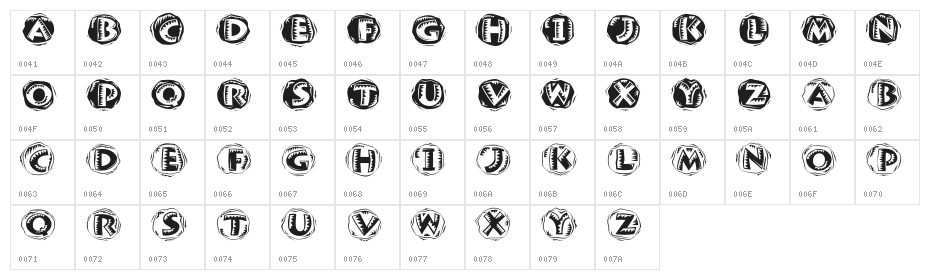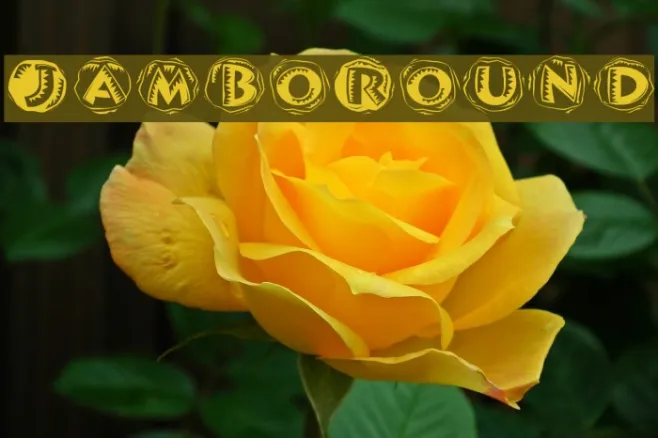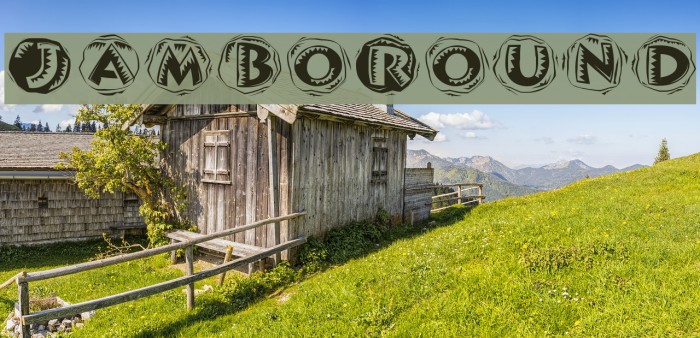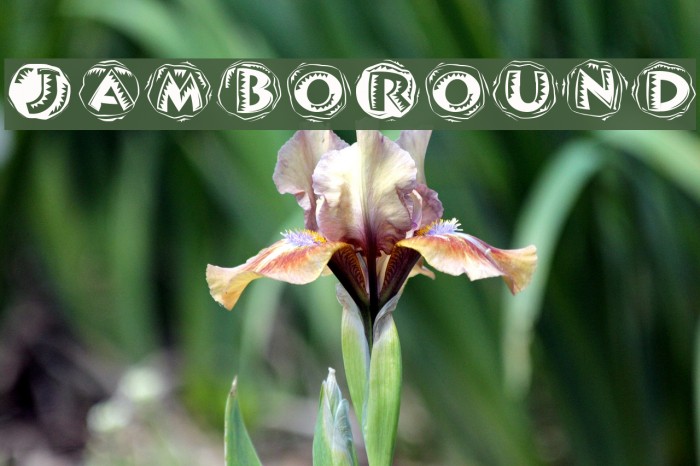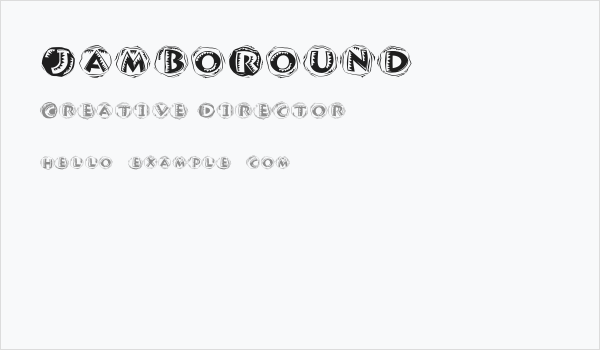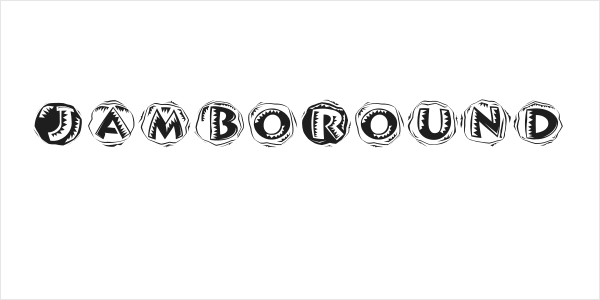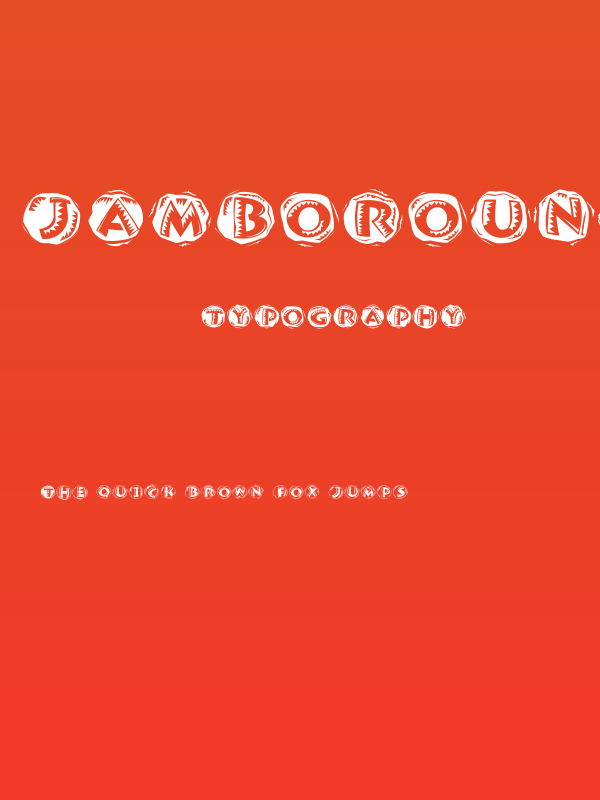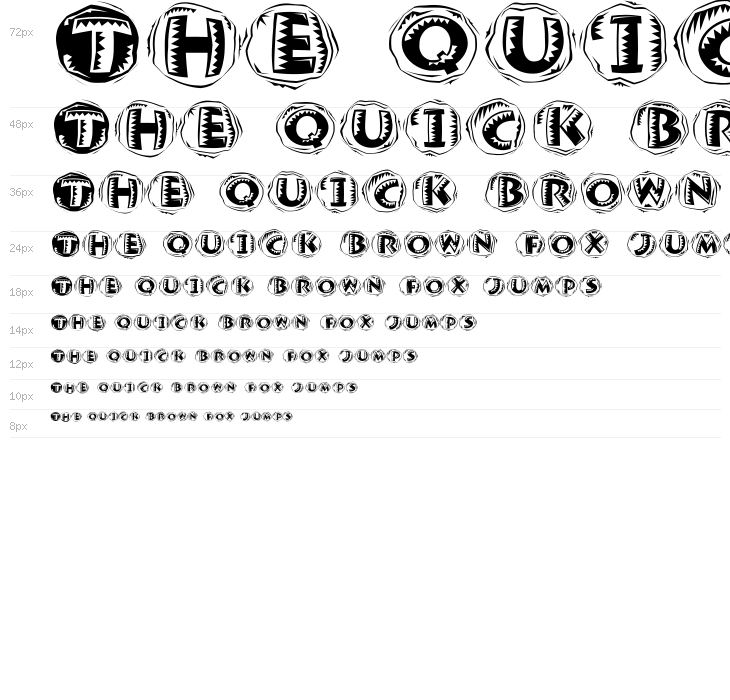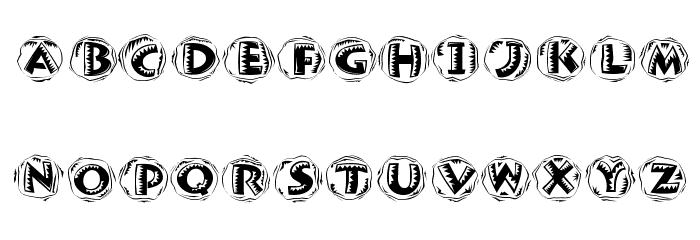
JamboRound Font
JamboRound Description
This font features bold, uppercase letters encased in circular shapes with a hand-drawn, sketch-like texture. The letters are stylized with a playful and artistic flair, making them stand out with a unique personality. The circular backgrounds add an extra layer of visual interest, giving the font a decorative and whimsical appearance. Each character is distinct, with varying line thicknesses and a slightly irregular outline that enhances its handcrafted feel. The overall design is eye-catching and suitable for creative projects that require a fun and engaging typeface.
| Overall Style | Whimsical, Artistic |
| Proposed Projects | Ideal for children's book covers, playful posters, creative branding, and artistic invitations. |